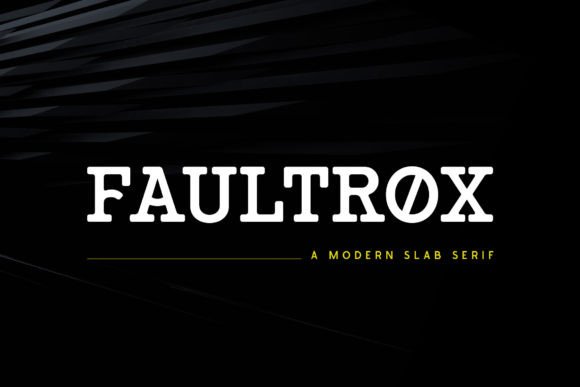
I still remember the frustration of working on a project, hours spent crafting the perfect design, only to be held back by one thing: the font. It was a classic logo design for a men’s skincare brand, and I was determined to get it just right. But, as I scrolled through my font library, nothing seemed to fit. That was until I stumbled upon Faultrox – a modern slab serif font that instantly clicked. In this article, I’ll share my experience with Faultrox, its features, and how to make the most of it in your designs.
Faultrox: A Modern Slab Serif Font
Faultrox is a versatile font designed for a wide range of applications, from classic logos and branding to editorial design, magazines, and more. Its unique blend of modern and vintage elements makes it perfect for designers, crafters, and creative hobbyists looking to add a touch of sophistication to their work.
- ✨ Unique Character: Faultrox has a distinct personality that sets it apart from other slab serif fonts.
- ✅ Highly Versatile: It can be used for a wide range of projects, from classic logos to editorial design.
- 💡 OpenType Features: Faultrox supports OpenType features, allowing for advanced typography and customization.
- 📚 Large Glyph Set: The font includes a large set of glyphs, making it suitable for multilingual projects.
While Faultrox is an excellent font, there are a few things to keep in mind:
- 🤔 Kerning: As with any font, kerning can be a bit tricky. Make sure to adjust the kerning to suit your design.
- ⚠️ Legibility at Small Sizes: While Faultrox is clear at larger sizes, it may become less legible at very small sizes.
A Practical Guide: Using Faultrox in Your Designs
If you’re looking for similar fonts or alternatives to Faultrox, consider:
- Rockwell: A classic slab serif font with a similar feel to Faultrox. Use it for projects requiring a more traditional look.
- Lato: A modern sans-serif font with a similar versatility to Faultrox. Use it for projects requiring a clean, contemporary look.
- Merriweather: A classic serif font with a similar elegance to Faultrox. Use it for projects requiring a sophisticated, vintage feel.
- Playfair Display: A luxurious display font with a similar high-end feel to Faultrox. Use it for headlines or titles requiring a touch of luxury.
Faultrox was inspired by the classic typography of the 19th century, combined with modern design sensibilities. The designer aimed to create a font that would be both nostalgic and fresh, with a unique character that would stand out in any design.
Q: What type of projects is Faultrox suitable for?
A: Faultrox is perfect for a wide range of projects, including classic logos and branding, editorial design, magazines, fashion promotional materials, ticket design, stationery design, blog design, advertising design, music, men’s skincare, art quotes, home decor, book/novel cover titles, special events, and more.
Q: Does Faultrox support OpenType features?
A: Yes, Faultrox supports OpenType features, allowing for advanced typography and customization.
Q: Is Faultrox suitable for multilingual projects?
A: Yes, Faultrox includes a large set of glyphs, making it suitable for multilingual projects.